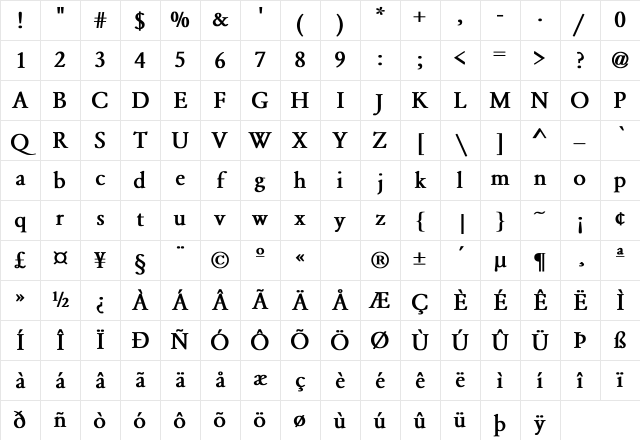
Smedley-Normal Bold Regular
Design Context for Smedley-Normal Bold
Smedley-Normal Bold is a composed and adaptable typeface that performs quietly and consistently across a wide range of design contexts. Its bold stroke weight gives it real presence on the page.